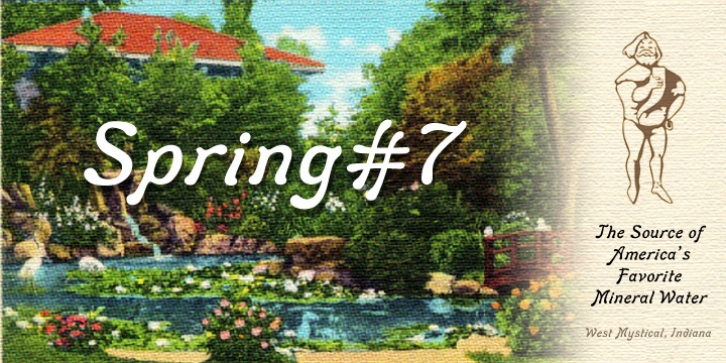
Spring#7 was designed by Joey Maul and published by Joey Maul. Spring#7 contains 1 style.
Spring#7 is a 1900s-style font based on text on postcards found after the turn of the century.
Italic in nature, it works nicely for text and graphics that need a humble old-timey look.